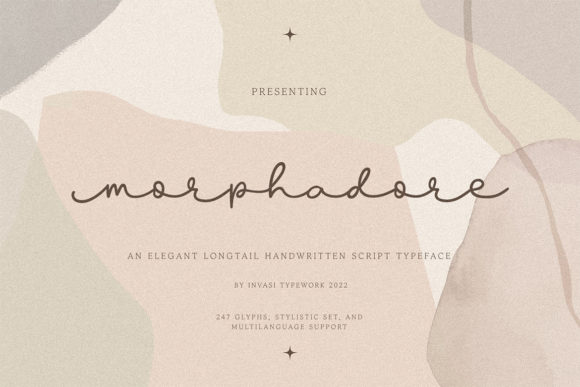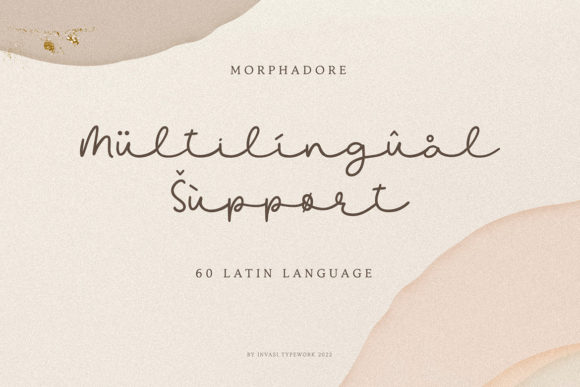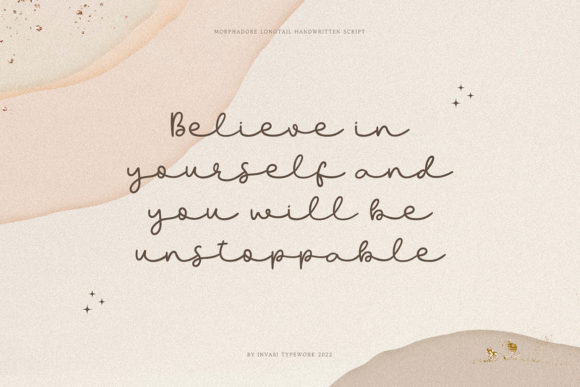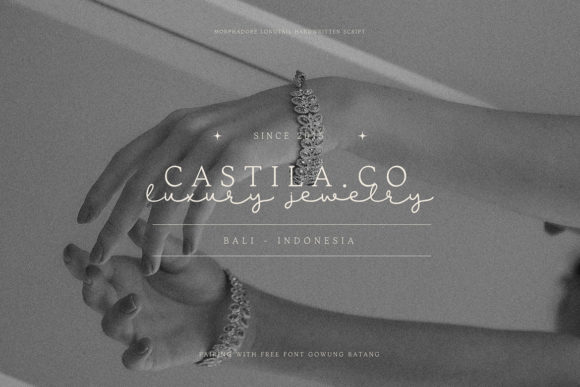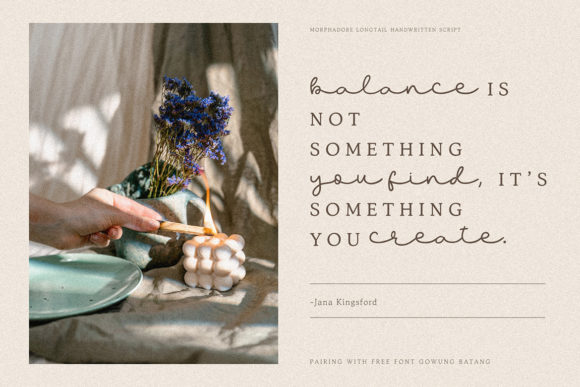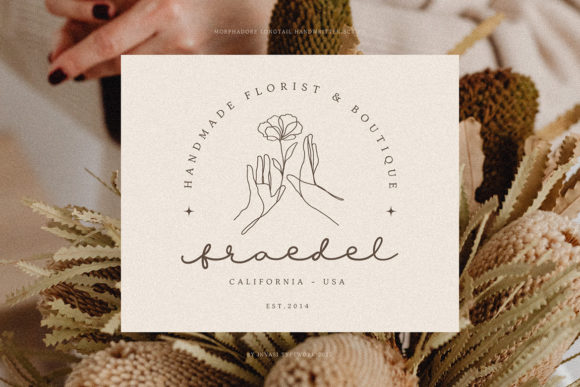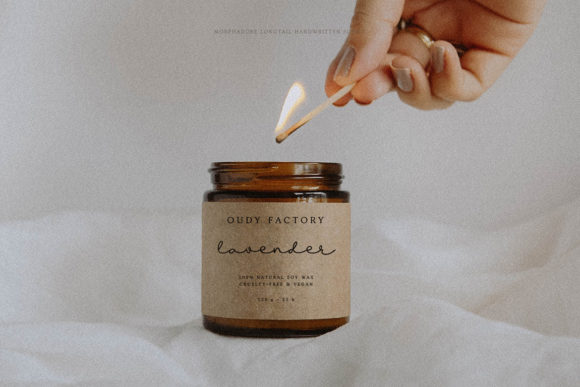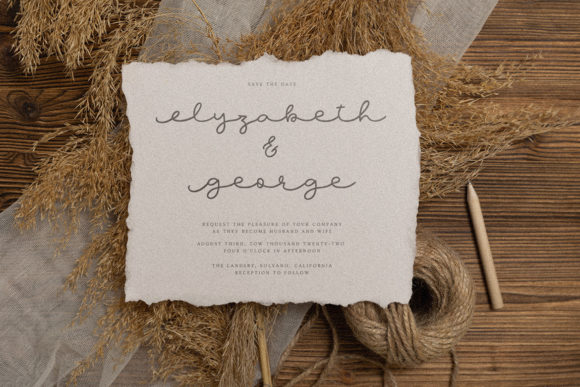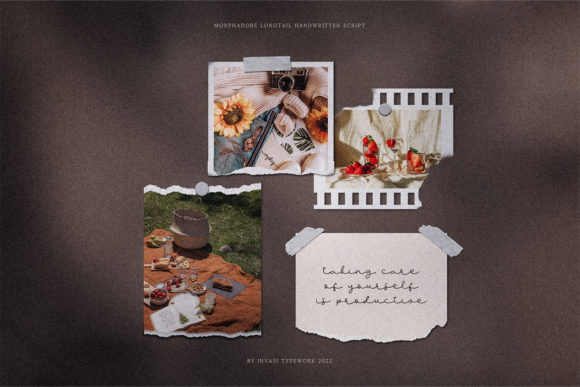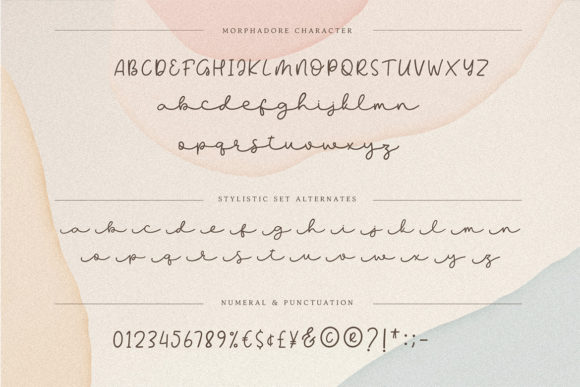
Morphadore Font
About Morphadore Font
“Morphadore” exudes elegance and luxury with its longtail monoline handwritten style, making it an excellent choice for a wide array of design projects. From logos to greeting cards, illustrations to quotes, this font adds a touch of sophistication and charm to any creative endeavor.
One of the standout features of “Morphadore” is its unique longtail monoline style, which adds an element of grace and refinement to any design. Whether used for branding materials, book covers, or packaging, this font’s elegant appearance elevates the overall aesthetic and leaves a lasting impression.
With “Morphadore,” you can effortlessly create gorgeous logos that stand out and make a statement. Its refined handwritten style adds a touch of personality and charm, helping to establish a strong brand identity that resonates with your audience.
Additionally, “Morphadore” is perfect for creating captivating greeting cards, illustrations, and quotes. Its graceful strokes and flowing lines add a sense of beauty and sophistication to any message, making it ideal for conveying heartfelt sentiments and inspiring creativity.
The font’s PUA encoding ensures easy access to all glyphs and swashes, allowing you to customize and enhance your designs with ease. Whether you’re adding decorative elements to your typography or experimenting with different stylistic variations, “Morphadore” gives you the flexibility to create stunning and unique visuals.
Overall, “Morphadore” is a versatile and elegant font that brings a touch of luxury to any design project. Whether you’re creating logos, branding materials, or packaging, this font’s longtail monoline style adds a sense of refinement and sophistication that sets your designs apart.